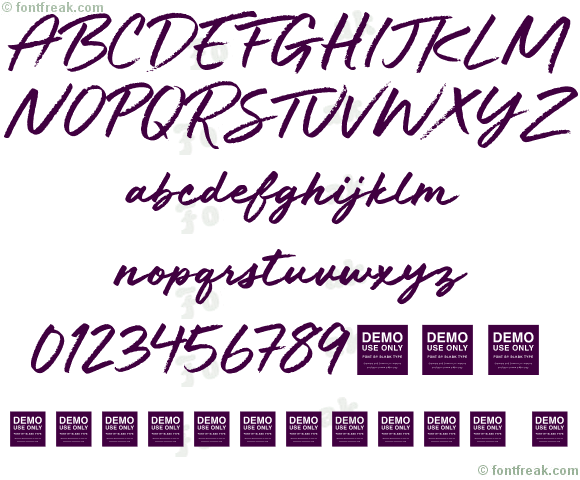
Rare Essence
Rare Essence is a beautifully crafted script font by BLKBK Fonts, designed to add an elegant touch to any project. This font exudes a unique blend of sophistication and warmth, making it a standout choice for a variety of creative applications. With its fluid, cursive strokes, Rare Essence captures the essence of handwritten artistry, while maintaining a modern aesthetic that appeals to contemporary tastes.
The visual characteristics of the Rare Essence font include a medium stroke weight that provides a balanced feel, complemented by gentle curves and flowing connections between letters. The moderate contrast between thick and thin strokes adds depth, making it visually engaging without overwhelming the viewer. The spacing is thoughtfully designed to ensure clarity, which enhances readability and allows the font to shine in a range of contexts.
This font is particularly well-suited for wedding invitations, where its elegant style can evoke romance and charm. It can also elevate the aesthetic of restaurant menus, giving a personal touch that resonates with diners. Additionally, Rare Essence is a perfect choice for branding projects, such as artisanal products or boutiques, where a unique identity is essential. Content creators and graphic designers will find this font invaluable for creating eye-catching social media graphics, ensuring that their content stands out in a crowded digital landscape.
The target audience for Rare Essence includes graphic designers, small business owners, and content creators who seek a font that marries elegance with versatility. The Rare Essence font free download offers an opportunity to incorporate a distinct visual element into projects without straining budgets. What sets Rare Essence apart is its ability to evoke emotion while remaining versatile enough for diverse applications, making it a must-have addition to any designer's toolkit.